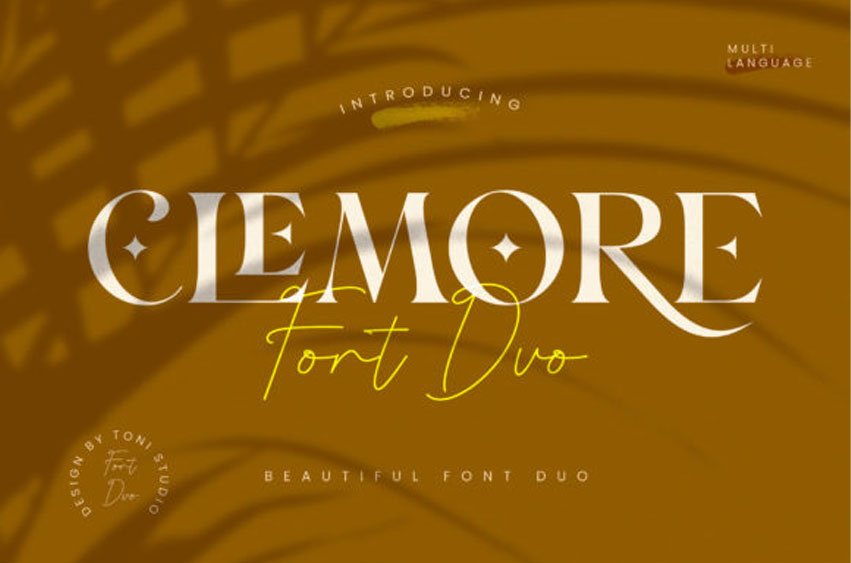
Clemore Duo Fontis a modern and elegant duo font (serif and script). It comes with clean lines and smooth curves, and it is perfect for logos, wedding designs, quotes, display text and anything else you want to get.